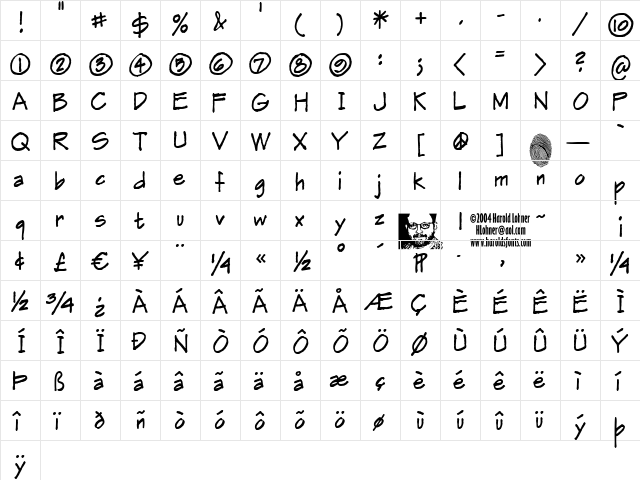
Frank the ArchitectAlt Regular
Design Context for Frank the ArchitectAlt Typeface
Frank the ArchitectAlt is a composed and adaptable typeface that performs quietly and consistently across a wide range of design contexts.